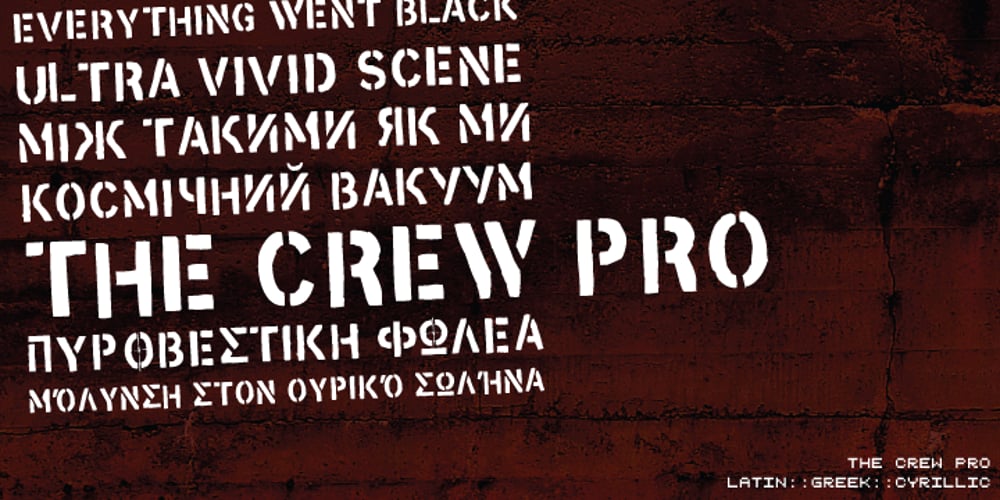
The Crew Pro Font Family was designed by Michael Wallner and published by The Type Fetish. The Crew Pro contains 1 styles and family package options. The Crew Pro is based on the logo of the seminal punk band 7 Seconds. It was expanded to include extended Latin, extended Cyrillic and Greek alphabets so it will work with most languages in Europe and the Americas.